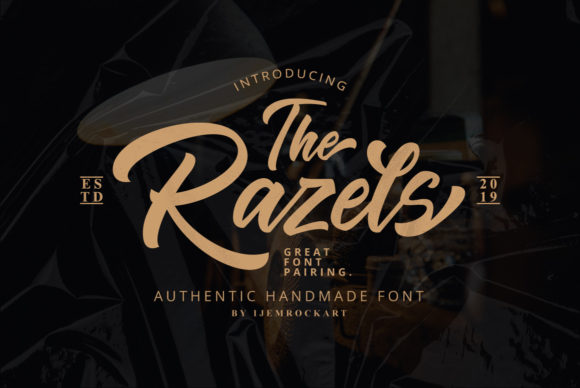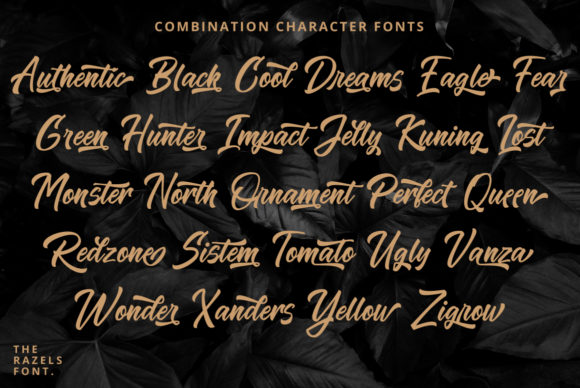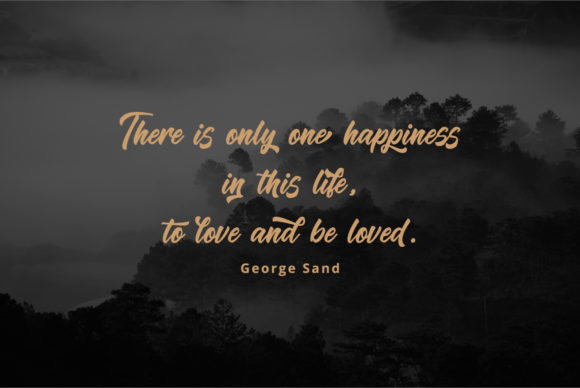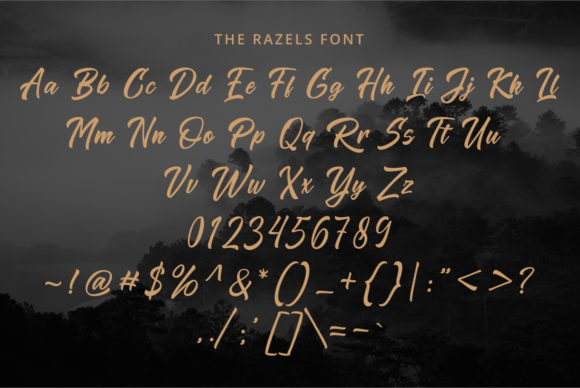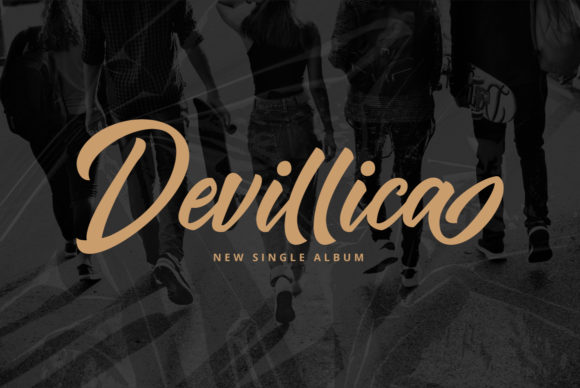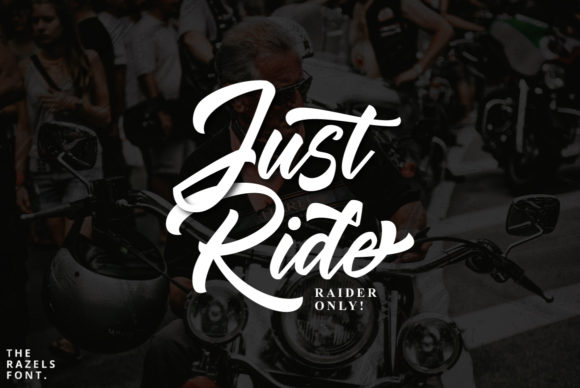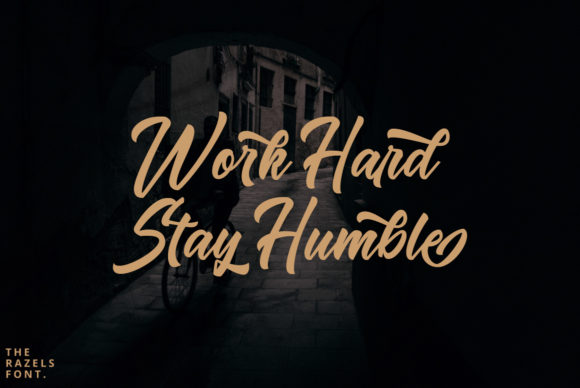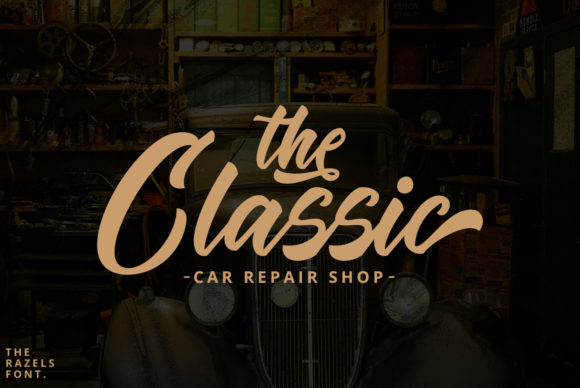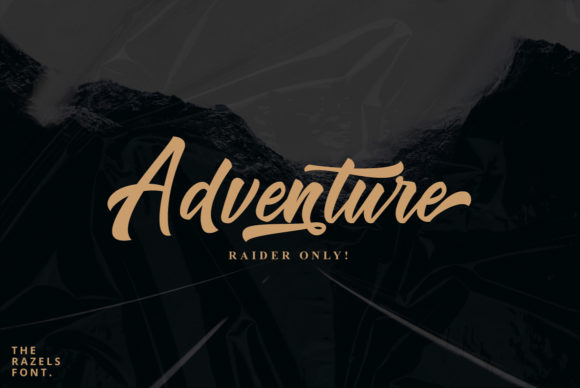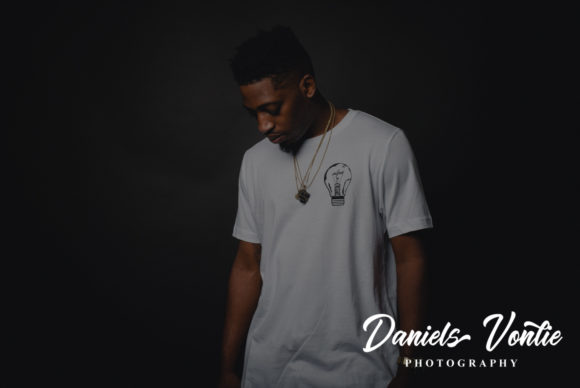
HomeScript FontsThe Razels Font Script Fonts The Razels Font FacebookXPinterestWhatsApp The Razels Font Poster 2 The Razels Font Poster 3 The Razels Font Poster 4 The Razels Font Poster 5 The Razels Font Poster 6 The Razels Font Poster 7 The Razels Font Poster 8 The Razels Font Poster 9 The Razels Font Poster 10 The Razels Font Poster 11 The Razels Font Poster 12 The Razels Font Poster 13 The Razels Font Poster 14 About The Razels Font Inspired by retro aesthetics, The Razels is a fun and authentic handwritten font with a bold feel! DOWNLOAD NOW People also explored Daniel Font Dumbledork Font Paper Story Font Realistic Mock-ups on Vintage Background Love Bear Font Miss Beautiful Font Jennifar Font Langit Merah Font Jacklin Font 301 0 TagsThe Razels Font Previous articleJettwishes FontNext articleGeurute Font LEAVE A REPLY Cancel reply Comment: Please enter your comment! Name:* Please enter your name here Email:* You have entered an incorrect email address! Please enter your email address here Website: Save my name, email, and website in this browser for the next time I comment. Personal Use Free Pelmeshka Personal Use Free Read more about this font Vembazax Rm Personal Use Free Read more about this font Love Heart Personal Use Free Read more about this font Good Mood Personal Use Free Read more about this font BLOG Top 7 Google Fonts Alternatives for Faster and Privacy-Friendly Web Design (2025) Top 7 Google Fonts Alternatives for Faster and Privacy-Friendly Web Design (2025) When it comes to web typography, Google Fonts has long been the go-to... Best Fonts for T-Shirt Design – Top 2025 Picks The 10 Best Handwriting Fonts to Add Personality to Your Designs How to Install and Use Fonts on Windows, macOS, and Web Projects